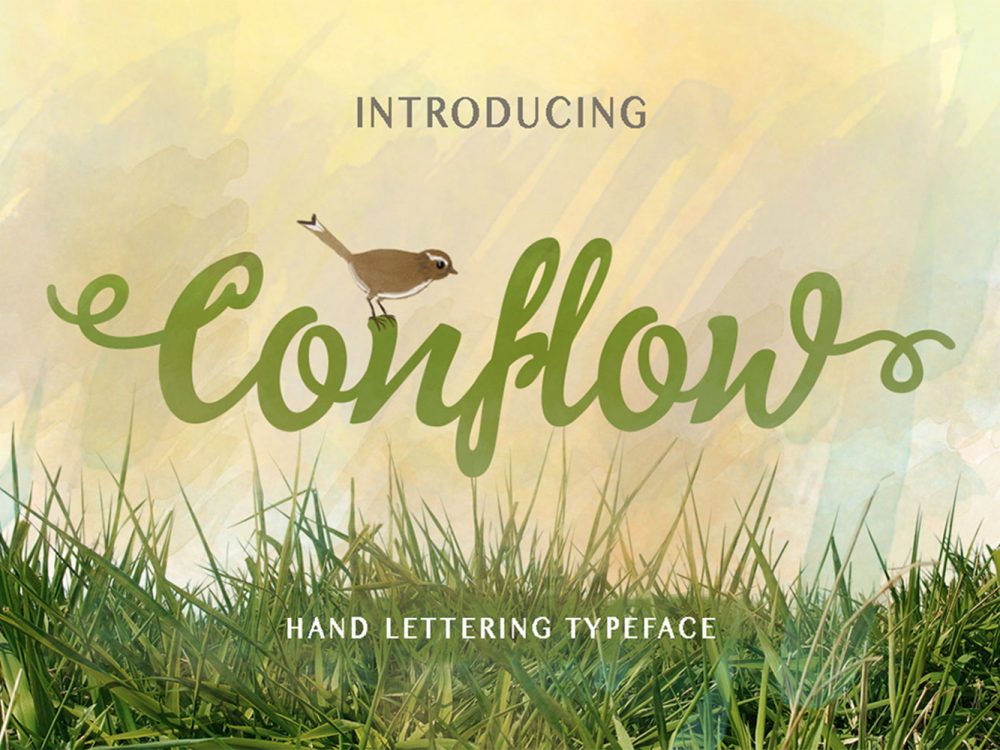
Conflow Typeface Font
Conflow Typeface Font is a beautiful interesting handwritten font that mimics writing with a brush and has elegant lines. This font is very suitable for creating various design projects that require a handwritten font. These can be posters, cards, invitations, branding, flyers, prints, and more.